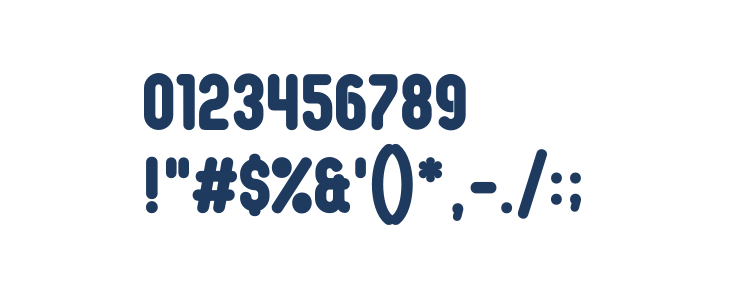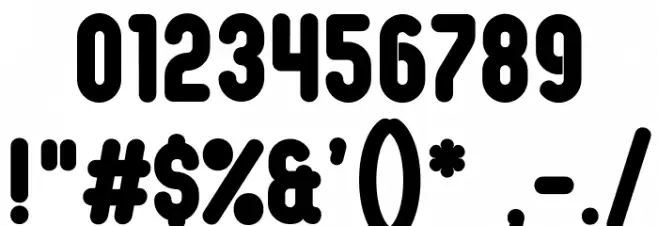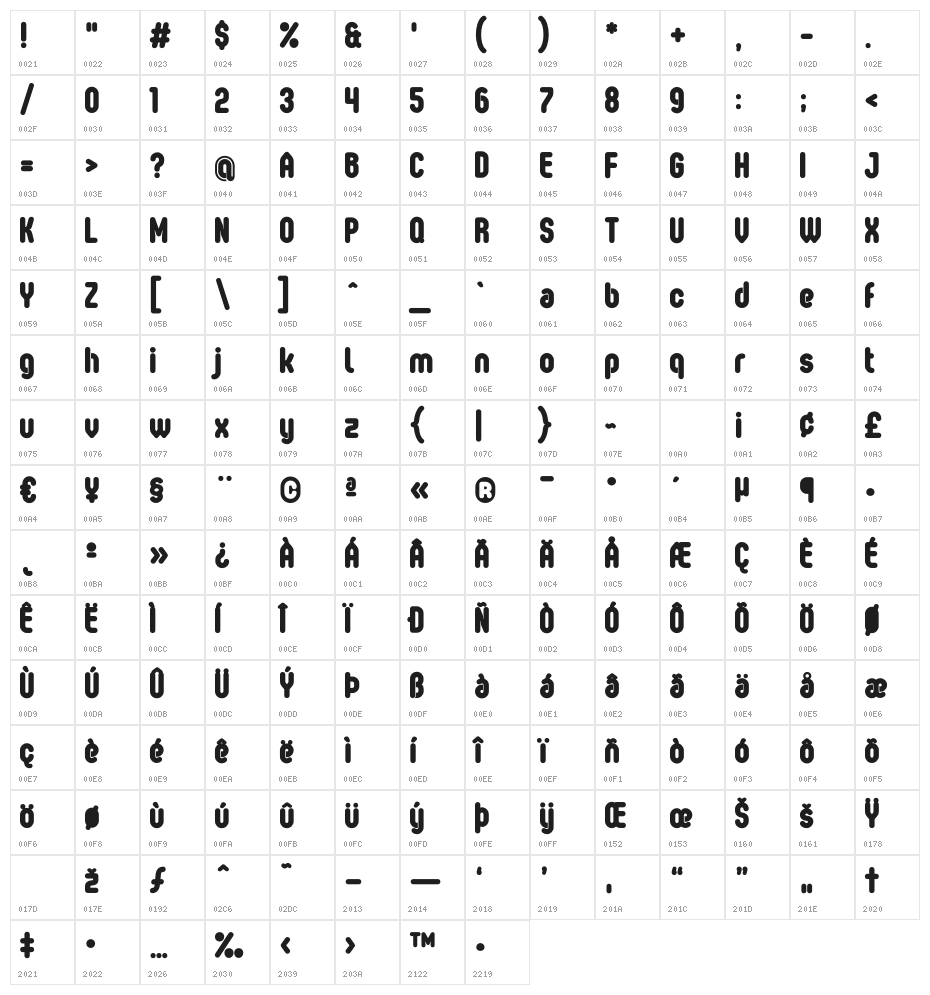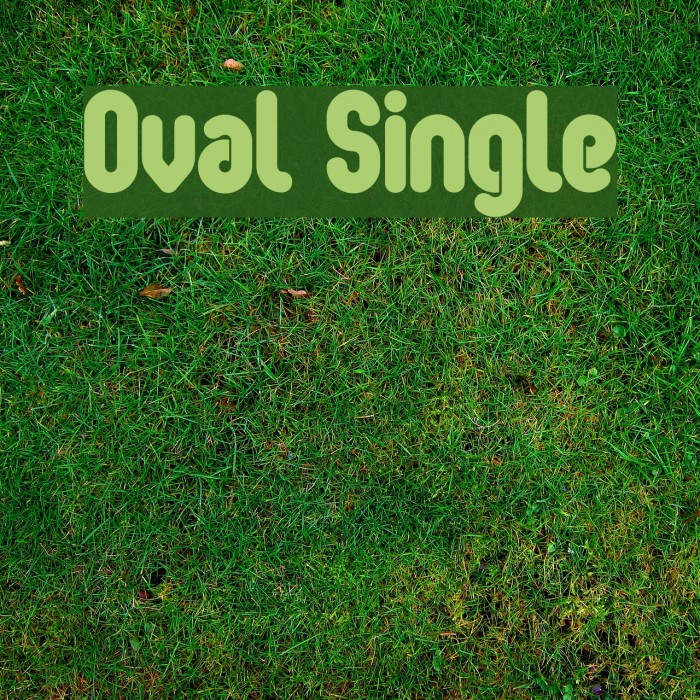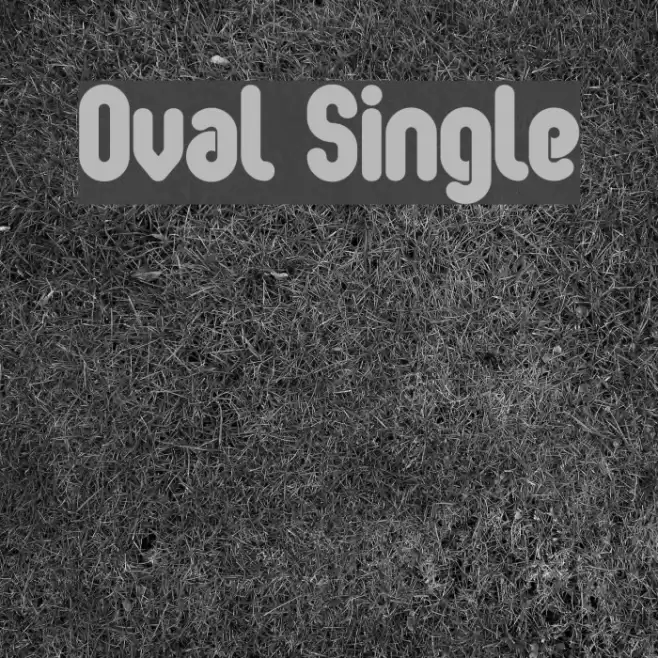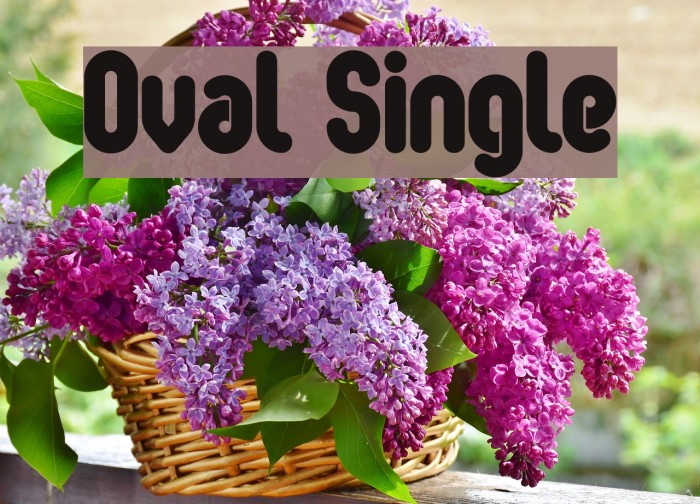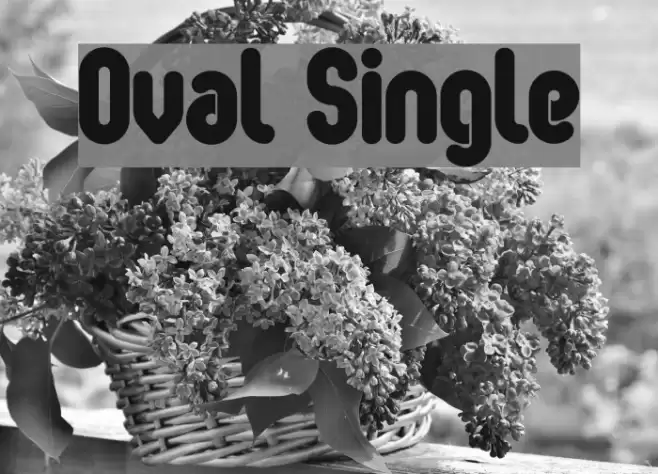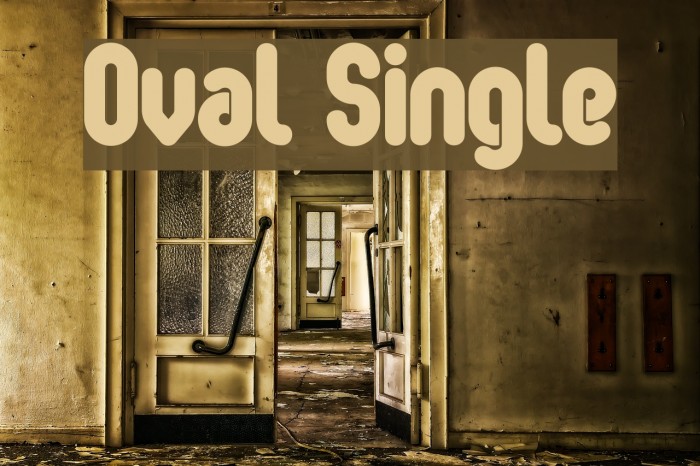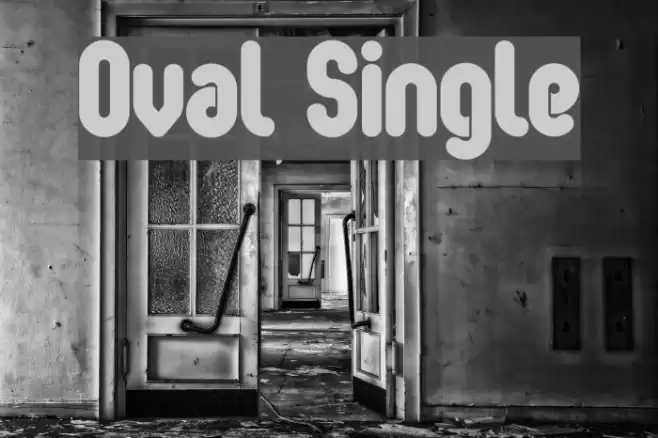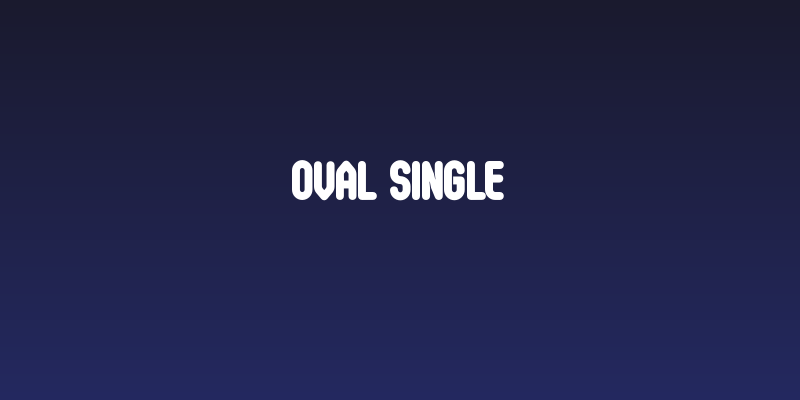
Oval Single Font
Oval Single Description
This font features bold, rounded characters with a playful and modern aesthetic. The letters are uniformly thick, giving them a strong presence on the page. The rounded edges and consistent stroke width create a friendly and approachable look, making it suitable for a variety of design projects. The numbers and special characters maintain the same rounded style, ensuring a cohesive appearance across all text elements. This font's distinct style makes it ideal for attention-grabbing headlines and creative branding.
| Proposed Projects | Ideal for branding, headlines, posters, and advertising materials that require a bold and friendly appearance. |